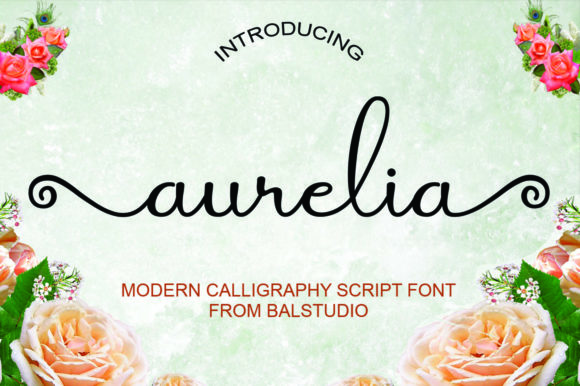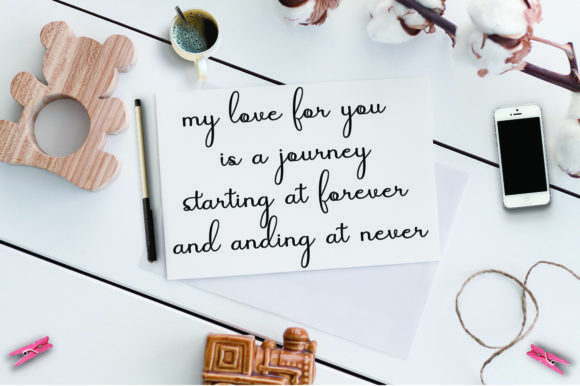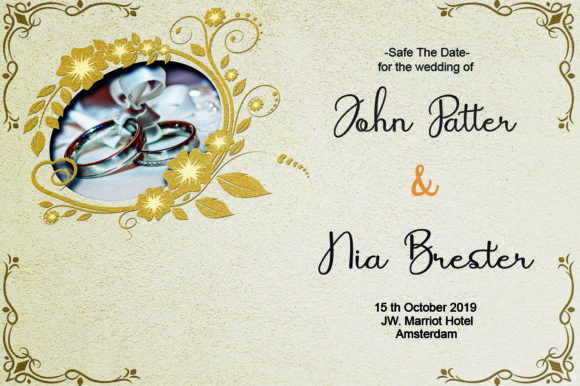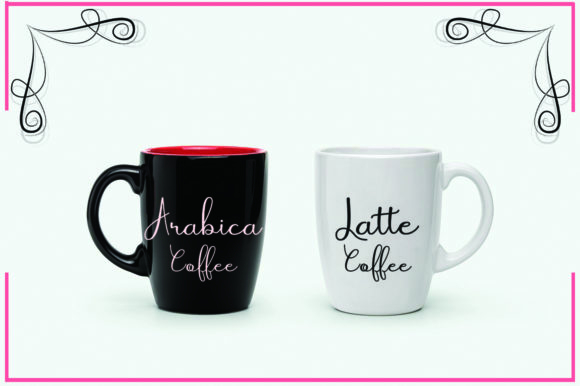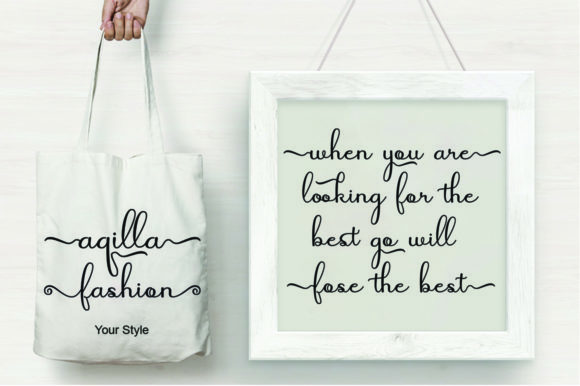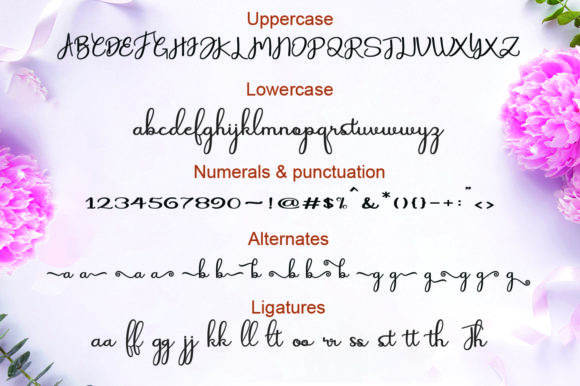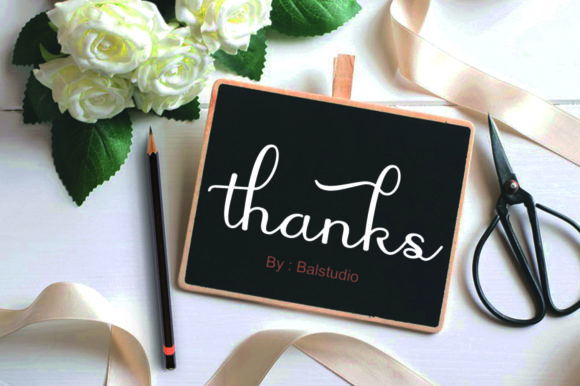
HomeScript FontsAurelia Font Script Fonts Aurelia Font FacebookXPinterestWhatsApp Aurelia Font Poster 2 Aurelia Font Poster 3 Aurelia Font Poster 4 Aurelia Font Poster 5 Aurelia Font Poster 6 Aurelia Font Poster 7 About Aurelia Font Aurelia is a stunning script with a classic look. Get inspired by its sweet and lovely feel! DOWNLOAD NOW People also explored Capison Font Zipline One Day Font Saurus Font Charlotte Font Monogram Ice Cream Font Alcott Ghalliana Font Boana Vista Font Christmas Cloud Font 270 0 TagsAurelia Font Previous articleMugelova FontNext articleMustika Font LEAVE A REPLY Cancel reply Comment: Please enter your comment! Name:* Please enter your name here Email:* You have entered an incorrect email address! Please enter your email address here Website: Save my name, email, and website in this browser for the next time I comment. Personal Use Free Urkelian Personal Use Free Read more about this font Charlie Personal Use Free Read more about this font The Shocker Personal Use Free Read more about this font Butter Belly Personal Use Free Read more about this font BLOG Exploring Font Trends Shaping Communication in the Digital Era Fonts, like all design elements, are subject to trends. They play a crucial role in communicating a brand's personality,... Elegant Wedding Invitation Fonts – Handwritten & Script Fonts How to Install and Use Fonts on Windows, macOS, and Web Projects Using Fonts in Digital Marketing: Tips to Strengthen Your Brand Identity